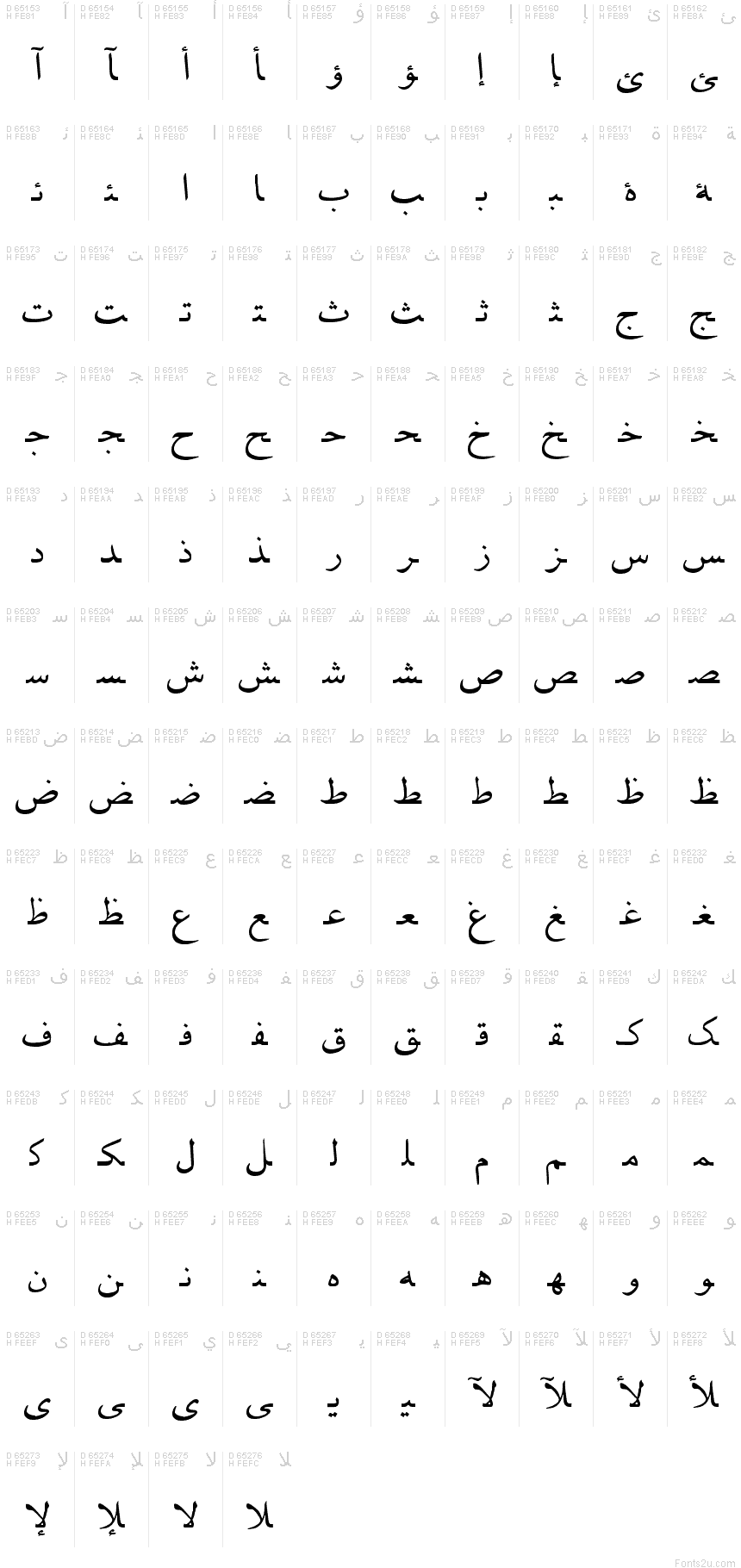
B Mashhad by Borna Rayaneh is a free Arabic display font shaped by tall pointed strokes and broad curved forms that give the lettering a steady, ceremonial rhythm. The forms feel more grounded than the earlier styles, with a firmer silhouette that reads as composed rather than brisk.
B Mashhad makes sense on cultural posters, book covers, restaurant branding, packaging, and editorial graphics, where the free font can carry short text with a calm, formal presence. It is especially convincing in headlines, title cards, and cover lines, since the strong curves and upright rhythm hold attention without needing extra decoration.